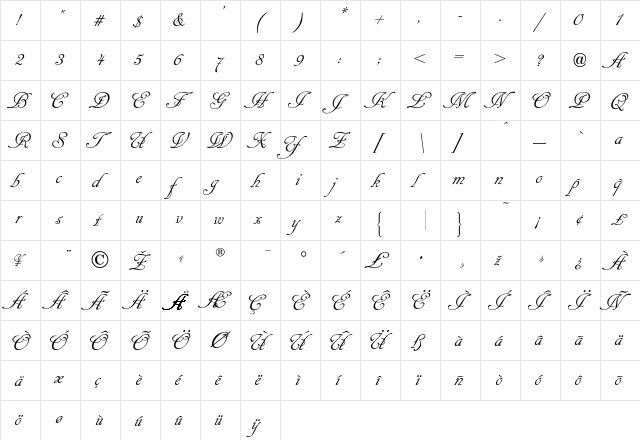
CancellarescaScript Regular
Design Context for CancellarescaScript Typeface
CancellarescaScript brings a calligraphic fluidity to the page — its connecting strokes and expressive curves give it an unmistakably human quality.
Font Pairing: Combine CancellarescaScript with a simple geometric sans for maximum contrast — the tension between flowing curves and clean structure is a classic typographic pairing.
Pro Tip: Pair CancellarescaScript with a clean sans-serif for supporting text. The contrast between fluid script and geometric structure creates an elegant typographic hierarchy.